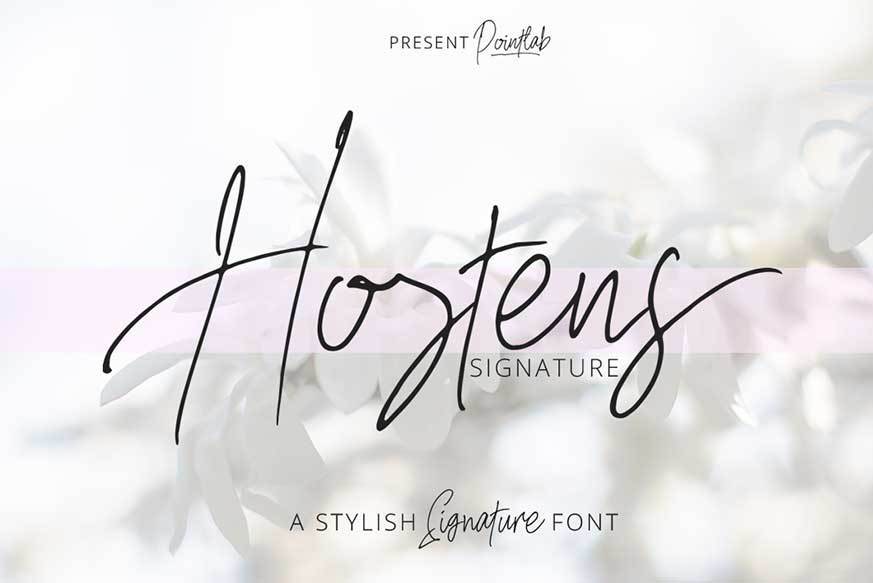
Hostens Signature Font
Hostens Signature a new fresh & modern script with a handmade calligraphy style, decorative characters and a dancing baseline. So beautiful on invitation like greeting cards, branding materials, business cards, quotes, posters, and more.